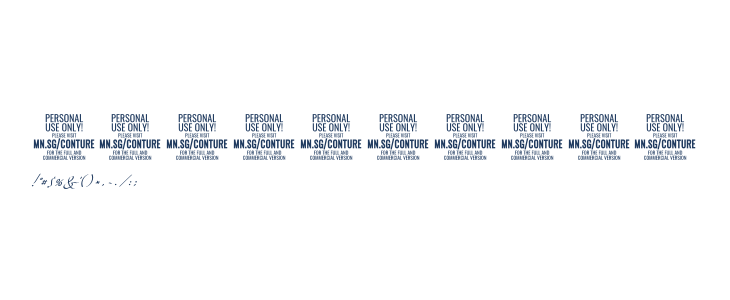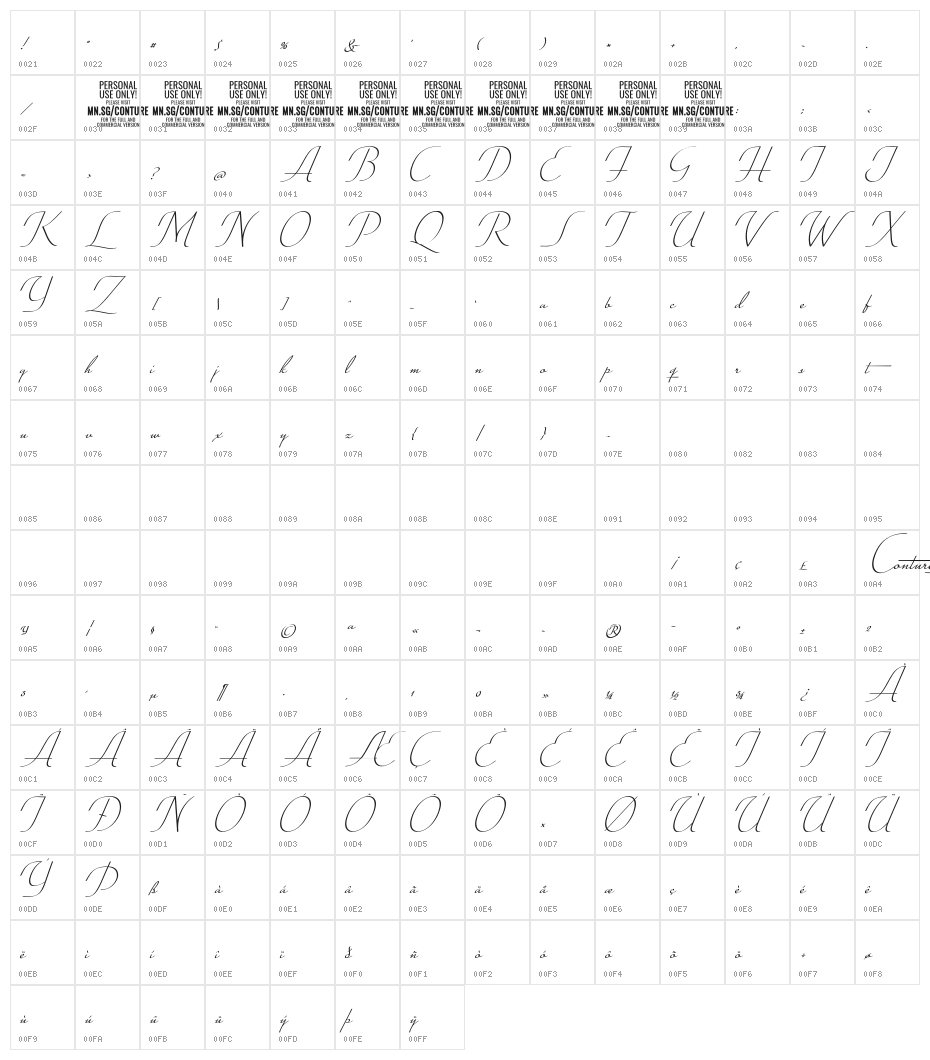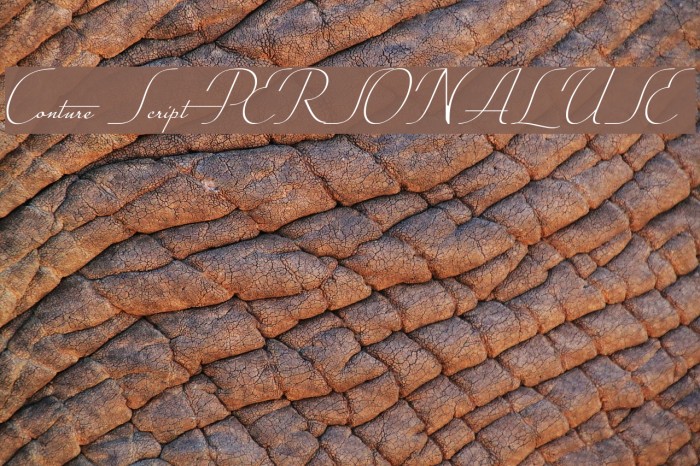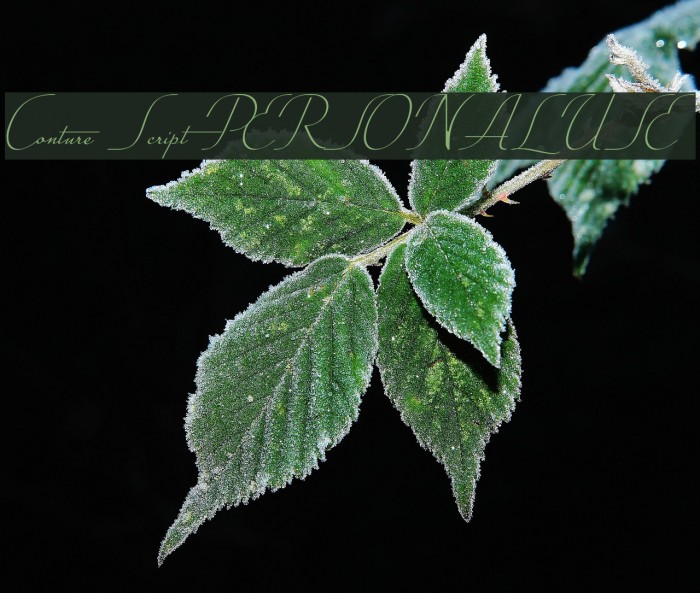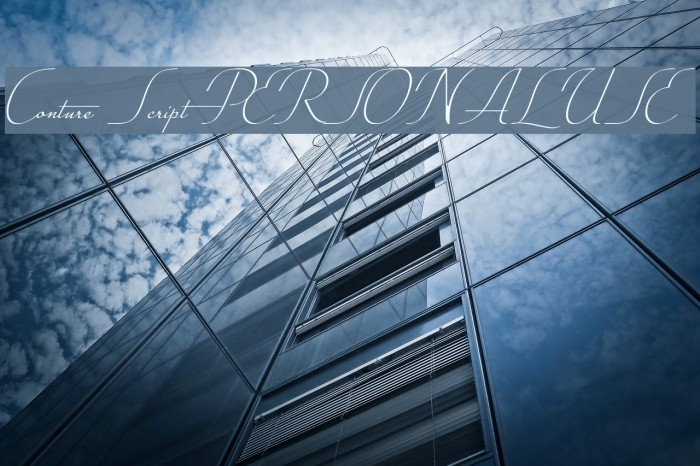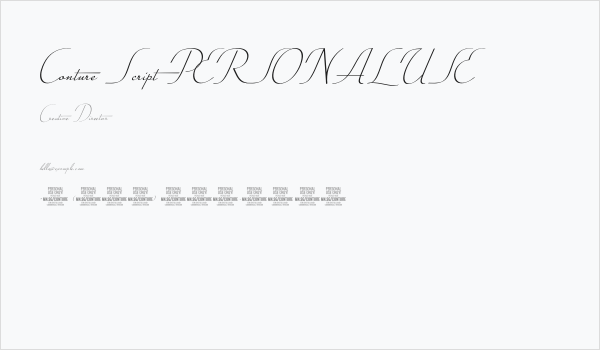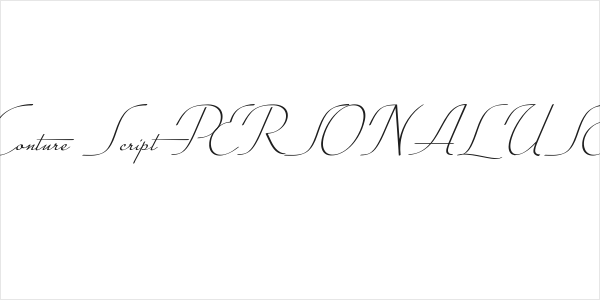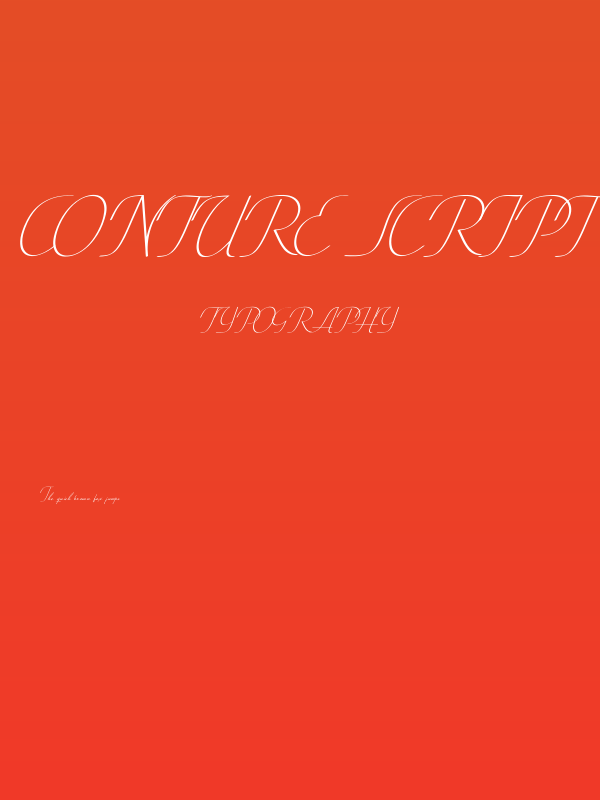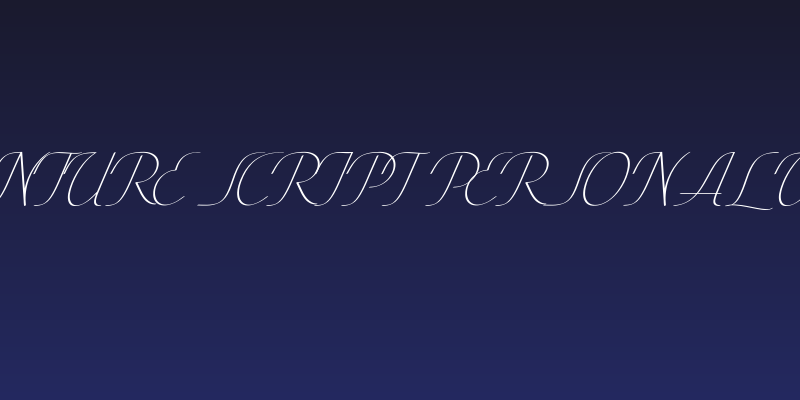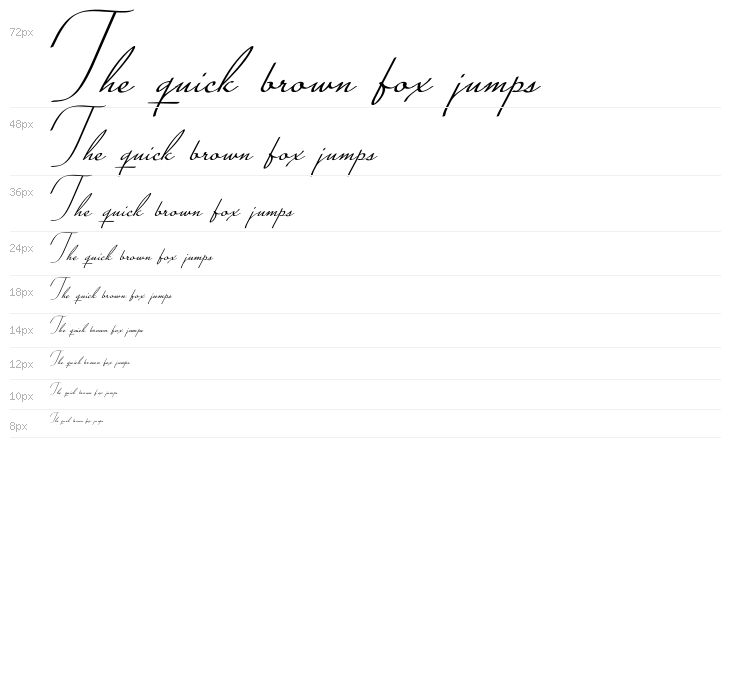
Conture Script PERSONAL USE Font
Conture Script PERSONAL USE Description
This elegant script font features a flowing, cursive style with delicate, elongated strokes and a refined appearance. The uppercase letters are characterized by their graceful loops and swashes, while the lowercase letters maintain a consistent, fluid motion. The font's thin lines and high contrast between thick and thin strokes give it a sophisticated and stylish look. It includes a full set of uppercase and lowercase letters, numerals, and a variety of special characters, making it versatile for various design needs.
MΓ₯ns GrebΓ€ck - www.mansgreback.com
| Overall Style | Elegant, Sophisticated |
| Use Case | Logos, Invitations, Decorative text |
| Proposed Projects | Ideal for wedding invitations, elegant branding, greeting cards, and luxury product packaging. |